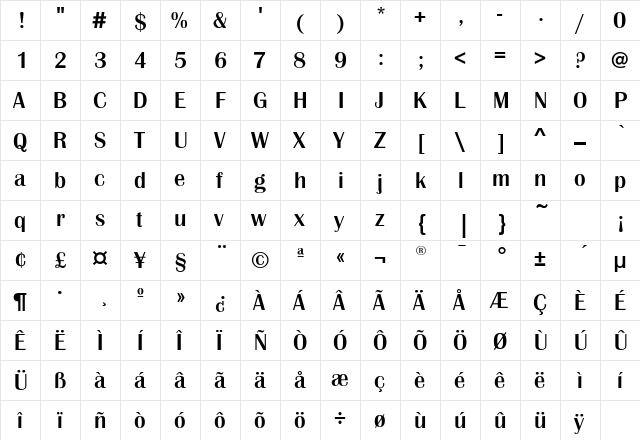
BritannicEFMedium Regular
Design Context for BritannicEFMedium Typeface
BritannicEFMedium takes a measured approach to typography — its balanced proportions and neutral character make it a reliable workhorse for both digital and print work.